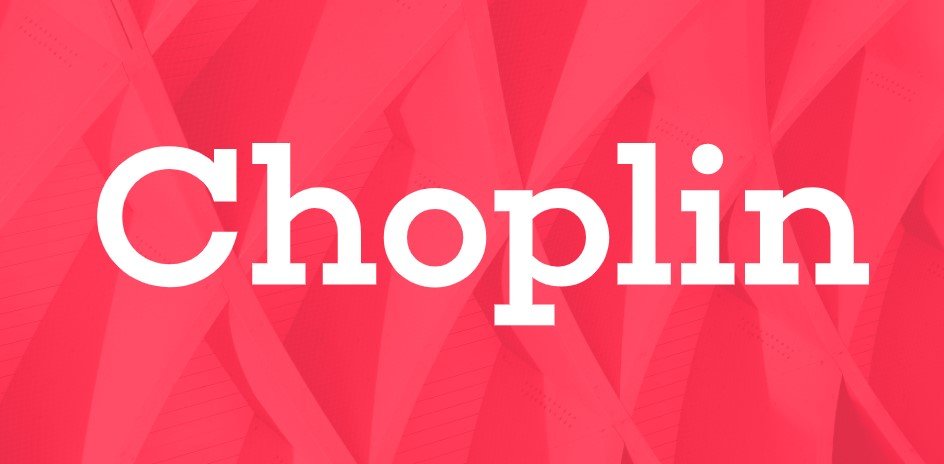
Here is the Choplin font. This is the modern and clear geometric slab serif that is present here for free download and it was designed with the aid of René Bieder.
This typeface styling is based on the Campton font family. This typeface is the ideal choice for photography layout programs and also for product layout. This font has been delivered around five hundred plus person set.
This typeface has a great variety of alternative glyphs and figures that has OpenType features. This typeface has great flexibility that makes this useful in every type of design.
Choplin Font is the aileron typeface that is similar to the garamond font. This typeface is used inside most of the different templates that have been developed in photoshop.
This unque and elegant font has a popular texture so that can also be used in pairing also. That’s why each designer treated it as a really perfect font in all appreciate.
• App design
• Postcards and flyers
• Books
• Email marketing templates
• Newspapers
• Theme design (WordPress, Shopify, etc.)
• Advertisements
• Video games
• Directories
Style Slab-Serif
Designer René Bieder
What Type of Font Is Choplin?
This is the modern and clear geometric slab serif that is designed with the aid of René Bieder.
What’s the Closest Font to Choplin?
The Slaberlin is very close to the Choplin Font.